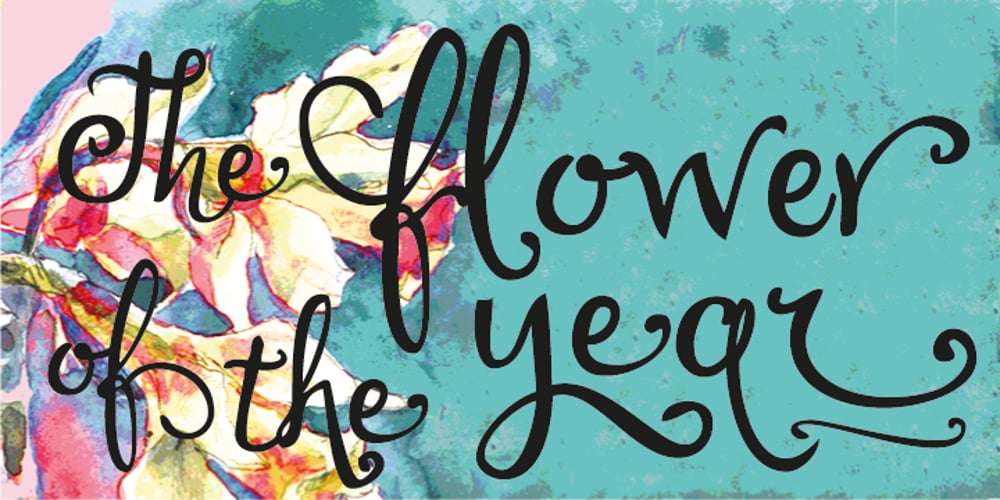
Lirio
Lirio font
Lirio Font Family was designed by Carine de Wandeleer and published by Eurotypo. Lirio contains 2 styles and family package options. Lirio is a decorative and expressive typeface, it’s elegant yet eccentrically handwritten font. Lirio is presented in two versions: Regular and Slanted. They have many advantages of the OpenType futures to choose from: stylistic alternates, swashes, contextual alternates, and a full set of standard and discretional ligatures. Lirio supports all diacritics for CE languages; they come also with a huge variety of ornaments, underlines, beginnings and word endings that will allow you to work in a creative way. Lirio can fit into many clients’ design brief. They’ve been specially thought to use in packaging design, children books, advertising, logotypes, greeting cards, restaurants, web sites and much more. These fonts may enlarge your graphic capabilities and your work can be more competitive.